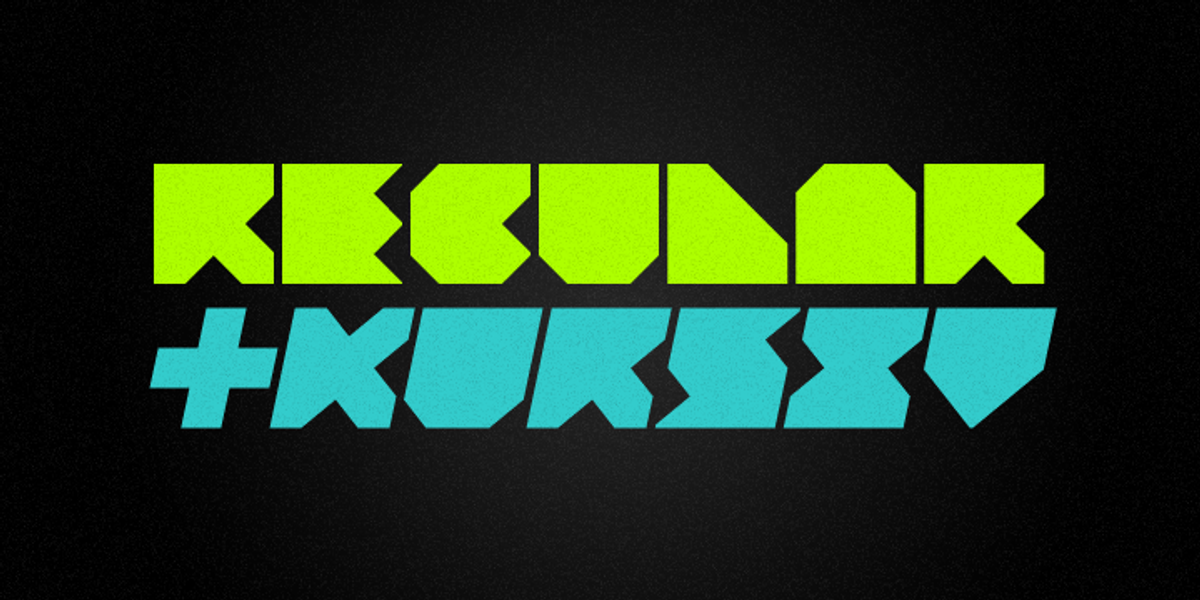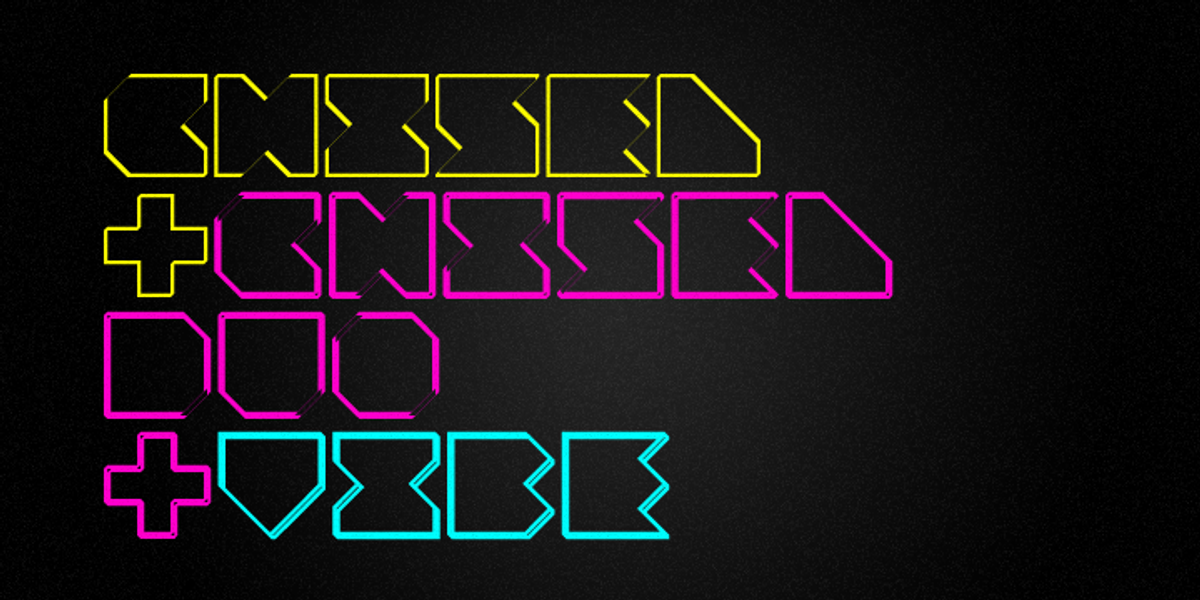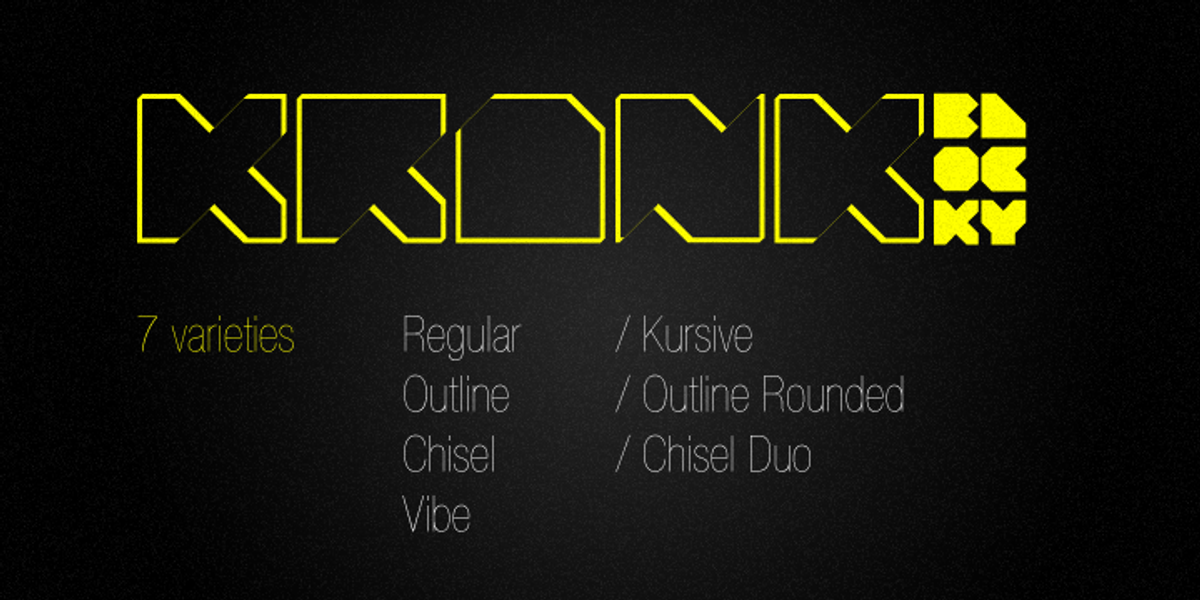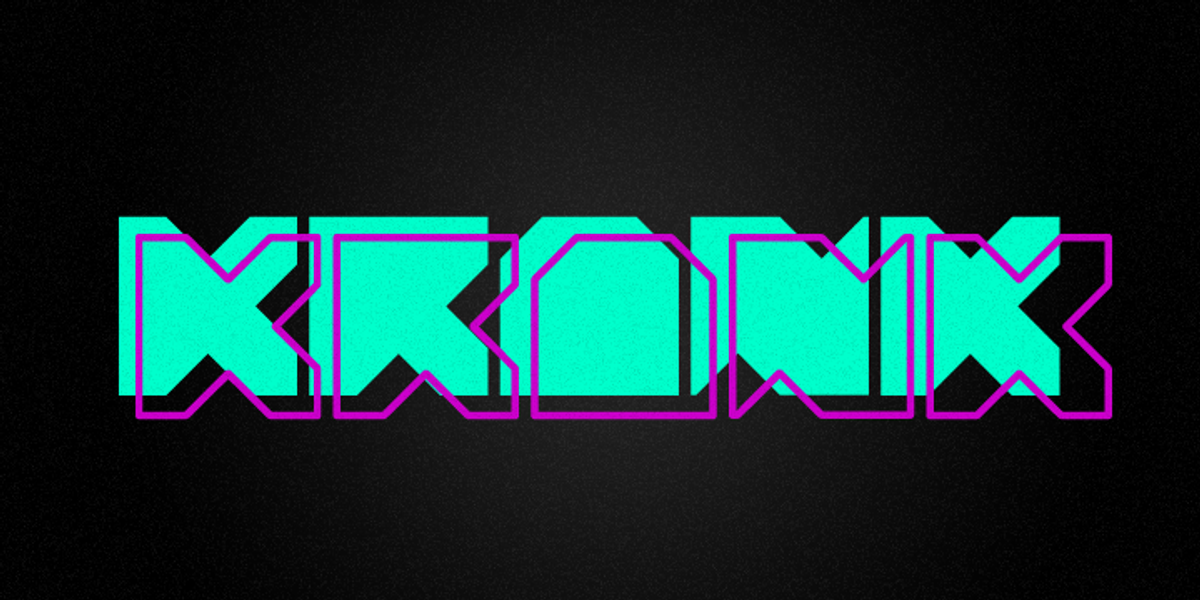
Krank
This typeface is a modern and minimalist heavy minimal display sans serif font. Its geometric, squared forms make it ideal for posters and other large-scale print and digital design projects.